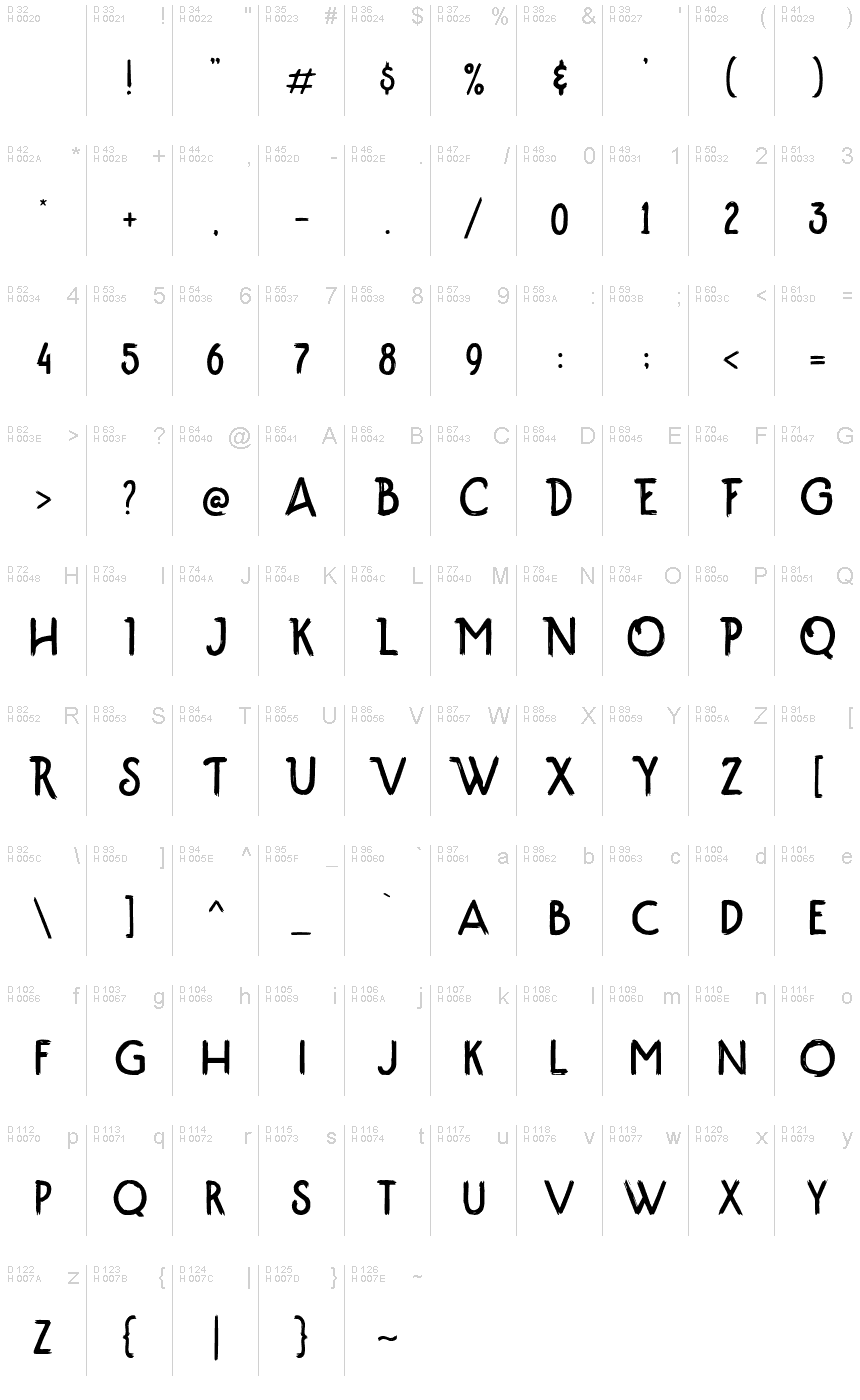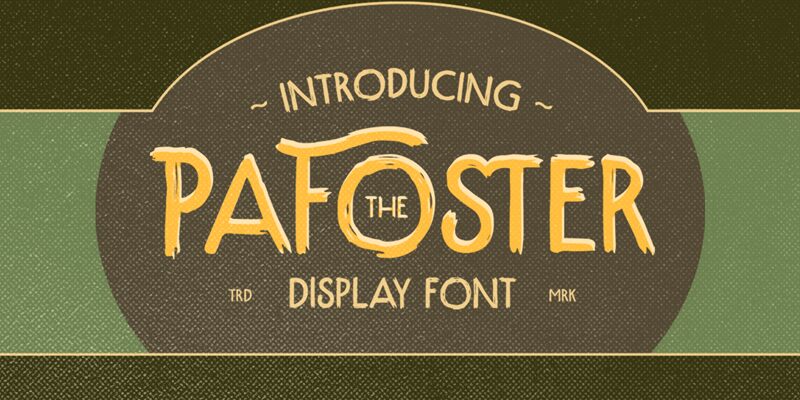
PafosterDemo
The Pafoster font, crafted by the talented Letterhend Studio, is a beautiful brush-style font that will add a touch of elegance to any project. With its semi-light weight, this typeface is perfect for creating graceful designs that are both legible and stylish. The brush-style of the Pafoster font adds a unique flair to any project, from elegant invitations to stunning product packaging. This font's versatility makes it suitable for a wide range of projects, including fashion branding, editorial design, and even social media graphics. Elevate your designs with the beautiful Pafoster semi-light brush font.